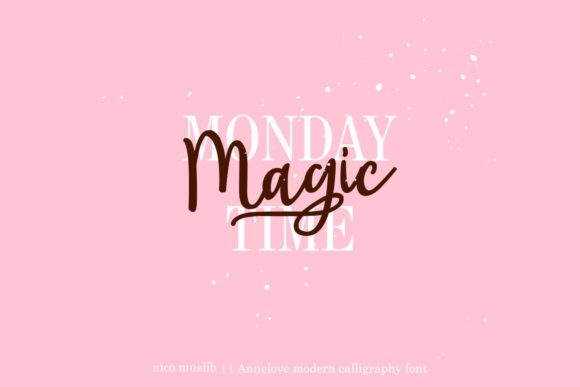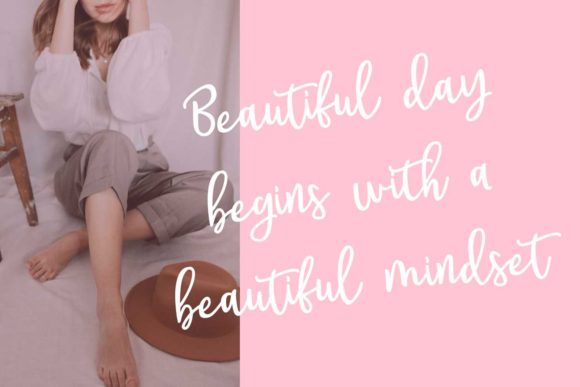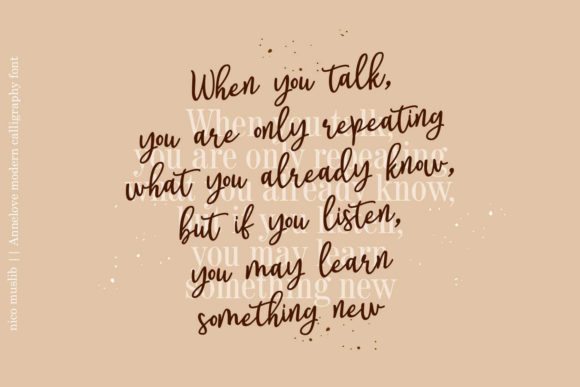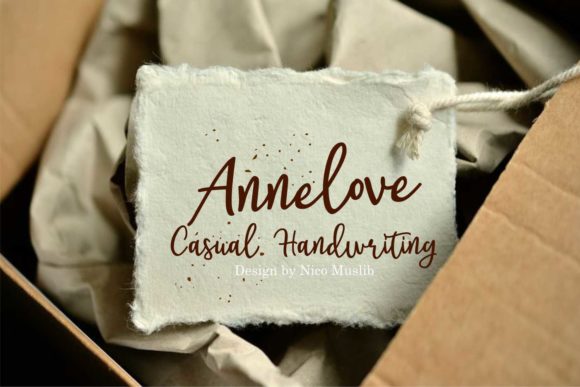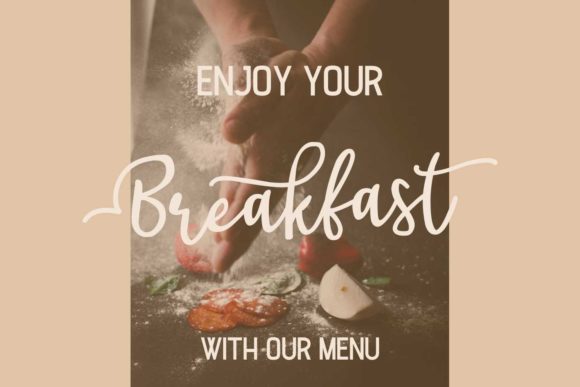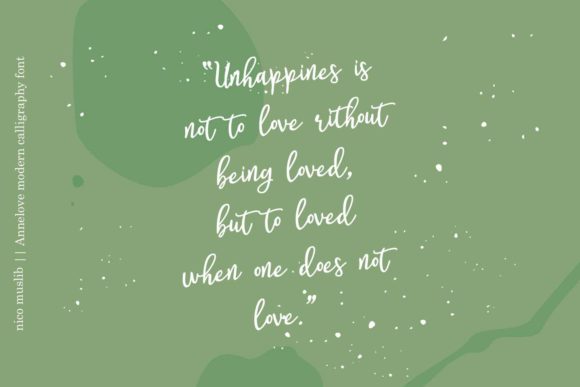
Introducing Annelove Font: Elevate Your Designs with Elegance and Sophistication
Are you tired of using the same old fonts in your designs? Look no further than Annelove Font, a stunning handwritten font that is sure to take your projects to the next level. With its elegant and flowing script, Annelove is perfect for designers and crafters who want to add a touch of class and sophistication to their work.
What Makes Annelove Font So Special?
Annelove Font is a beautifully crafted font that features a varying baseline, smooth lines, gorgeous glyphs, and stunning alternates. Its classy calligraphic influences are balanced by a contemporary and fresh feel, making it perfect for a wide range of design projects. Whether you’re creating wedding invitations, branding materials, or social media graphics, Annelove Font is sure to impress.
One of the best things about Annelove Font is that it is PUA (Private Use Area) encoded. This means that you can access all of the glyphs and swashes with ease, giving you even more creative freedom and flexibility. With PUA encoding, you can easily insert special characters and flourishes into your text, making your designs even more beautiful and eye-catching.
Annelove Font is a versatile font that is perfect for designers and crafters of all levels. Whether you’re a professional designer or just starting out, this font is easy to use and can be incorporated into a wide range of design projects. Its elegant and sophisticated style makes it perfect for:
Why Choose Annelove Font?
With so many fonts to choose from, why should you choose Annelove Font? Here are just a few reasons:
- Elegant and sophisticated style: Annelove Font has a timeless, elegant style that is sure to impress.
- PUA encoded for easy access: With PUA encoding, you can easily access all of the glyphs and swashes, giving you even more creative freedom.
- Versatile and flexible: Annelove Font can be used in a wide range of design projects, from wedding invitations to branding materials.
- Contemporary and fresh feel: Despite its classic calligraphic influences, Annelove Font has a fresh and contemporary feel that will make your designs stand out.
Get Ready to Fall in Love with Annelove Font
If you’re looking for a font that will take your designs to the next level, look no further than Annelove Font. With its elegant and flowing script, PUA encoding, and versatile style, this font is sure to become a favorite in your design arsenal. So why wait? Get ready to fall in love with Annelove Font and bring your projects to the highest levels!
In conclusion, Annelove Font is a stunning handwritten font that is perfect for designers and crafters who want to add a touch of elegance and sophistication to their work. With its PUA encoding, versatile style, and elegant and flowing script, this font is sure to impress. Whether you’re creating wedding invitations, branding materials, or social media graphics, Annelove Font is the perfect choice. So why wait? Try Annelove Font today and see the difference it can make in your designs!